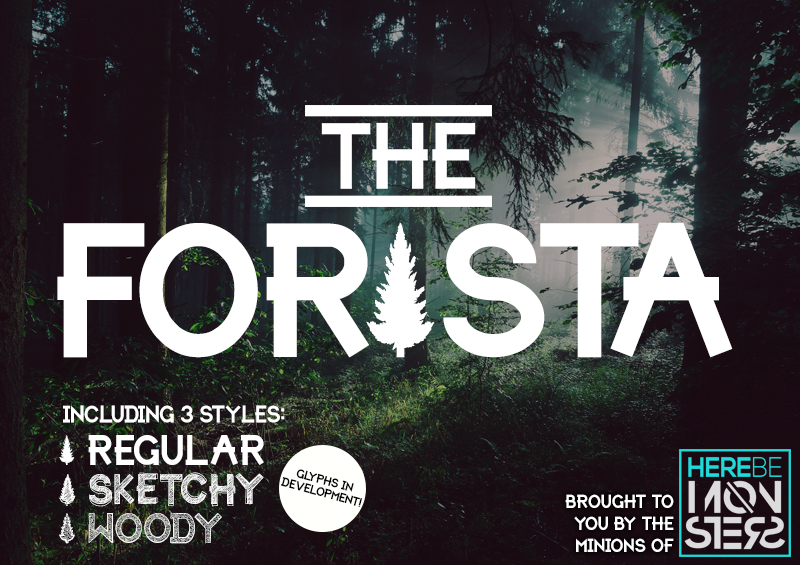
FORISTA is a bold, adventurous font with a unique personality: It’s all caps style, playful characters and different textures are fun and stylistic to give your project a new and fresh look. FORISTA is perfectly suited to those looking for a simple, beautiful font. FOR PERSONAL USE ONLY. For licensing visit: http://www.monsterswithin.com - Big Minion |